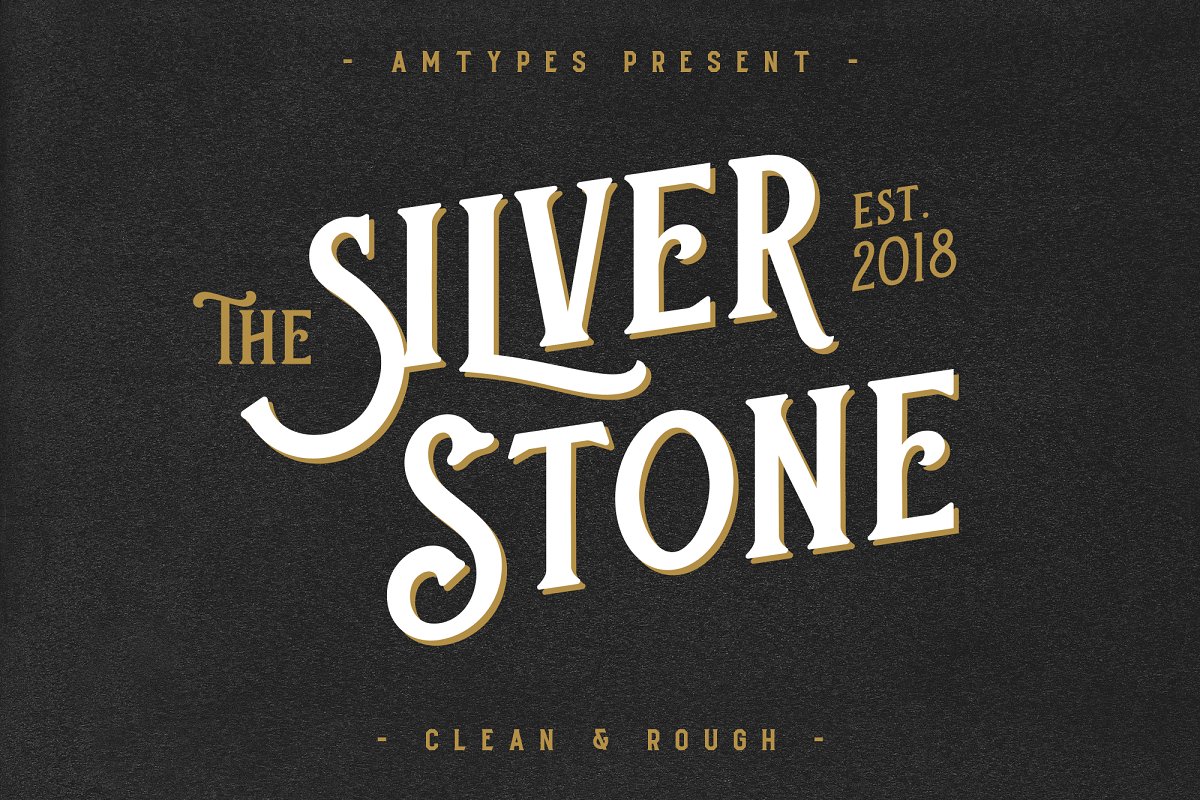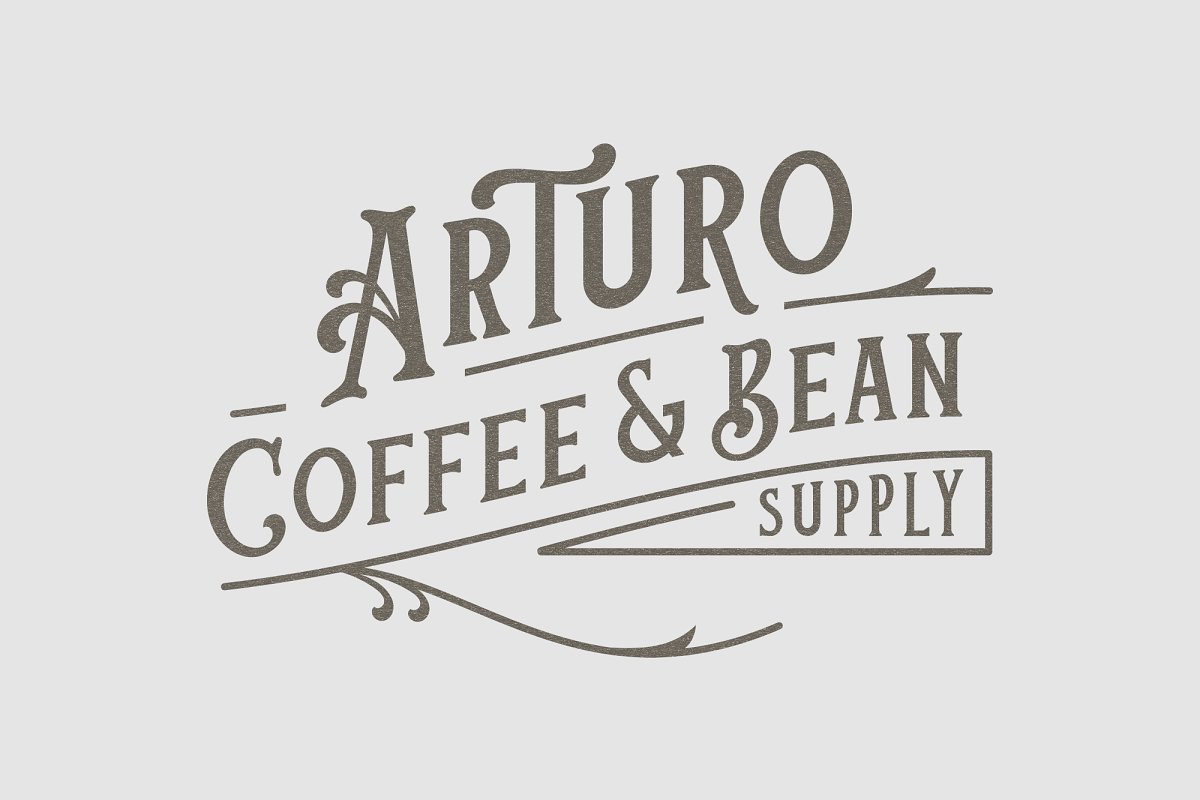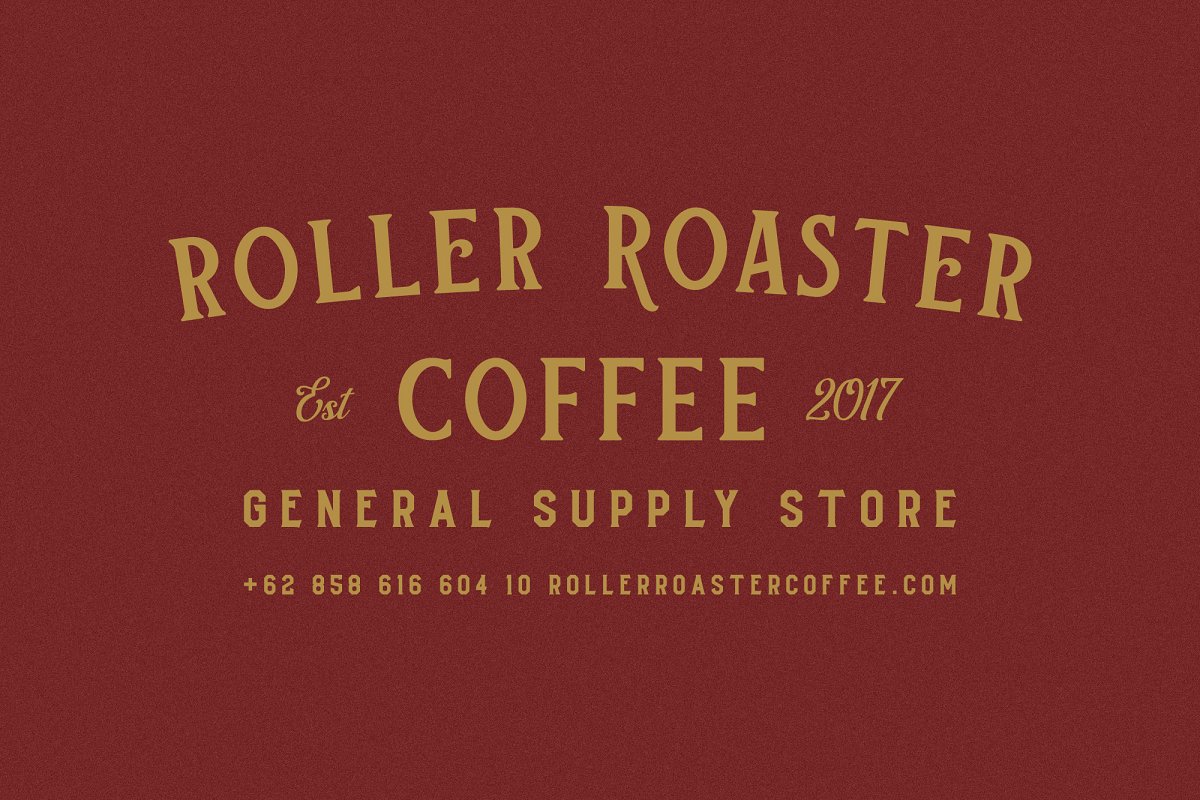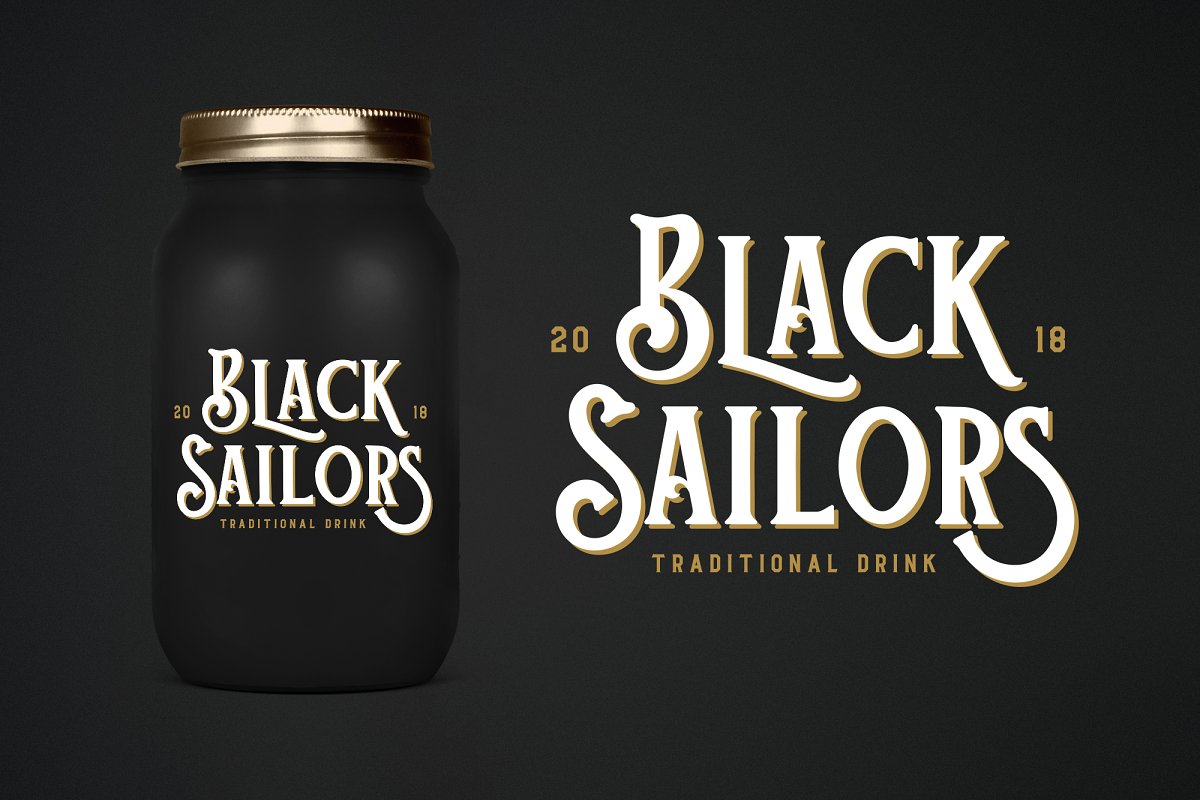
About the Silver Stone Font + Bonus
Silver Stone is a new vintage display and inspired by vintage packaging, vintage book cover, and vintage tins, This font is perfect for the vintage design logo, branding or product packaging, File Includes :Silver Stone RoughCortez ( Bonus )9 Editable Badge ( Bonus )Features :Standard Uppercase & Lowercase with special uppercase lettersNumber & PunctuationStylistic AlternatesLigaturesAccented CharactersIn order to use alternates & ligatures you need a program that supports OpenType features such as Adobe Illustrator CS, Adobe Photoshop CC, Adobe Indesign and CorelDraw X6-X7